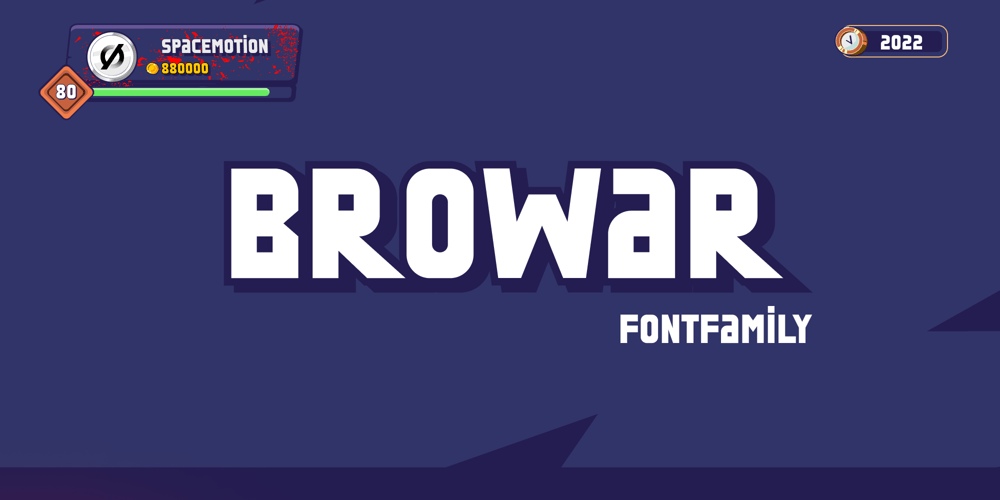
Browar Font Family was designed by Matthew Grouss, Pavel Nevsky and published by Spacemotion. Browar contains 1 styles and family package options. Browar is a display Grotesk typeface which has Latin & Cyrillic scripts. It comes in 1 weight and it contains 416 characters. Browar includes extended language support (+ Cyrillic), fractions, tabular figures, arrows, ligatures and more. Perfectly suited for graphic design and any display use. It could easily work for web, signage, corporate, newspaper, display, magazines, game ui as well as for editorial design.